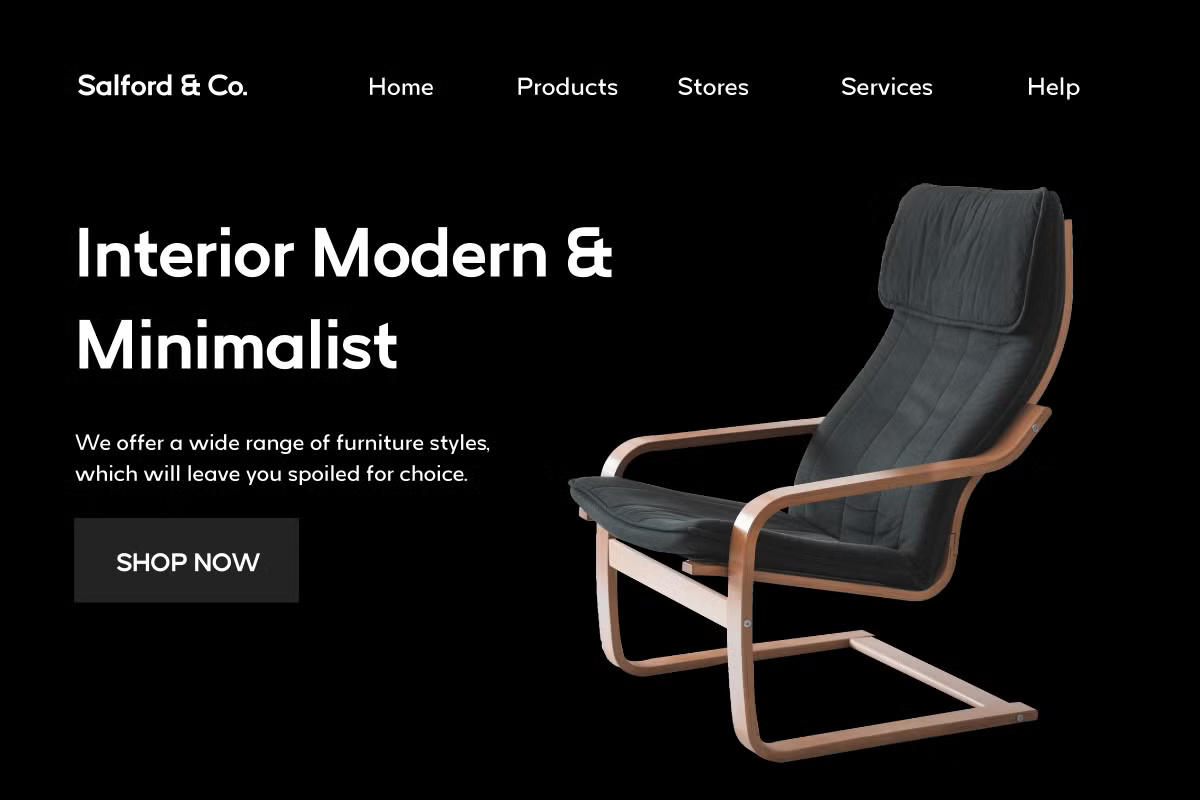
Germagont is a calm, rounded sans. Bowls are near circles, the a is double storey and the overall color is even. The preview builds a furniture shop site, Interior Modern and Minimalist, with a dark armchair, and the font fits that quiet mood.
Fikryal Studio made six styles: Light, Light Italic, Regular, Italic, Bold and Bold Italic. The glyph page is very large, with accented letters for many European languages. The download here is TTF. The italics are true slanted forms rather than tilted copies, which helps in longer text where emphasis is needed.
Best uses for Germagont
- Furniture and interior brands
- Websites
- Reports
- Presentations
- Packaging
Germagont pairs well with a serif. Libre Baskerville works for headings. Lora suits long text.
Germagont Sans Serif Font Family